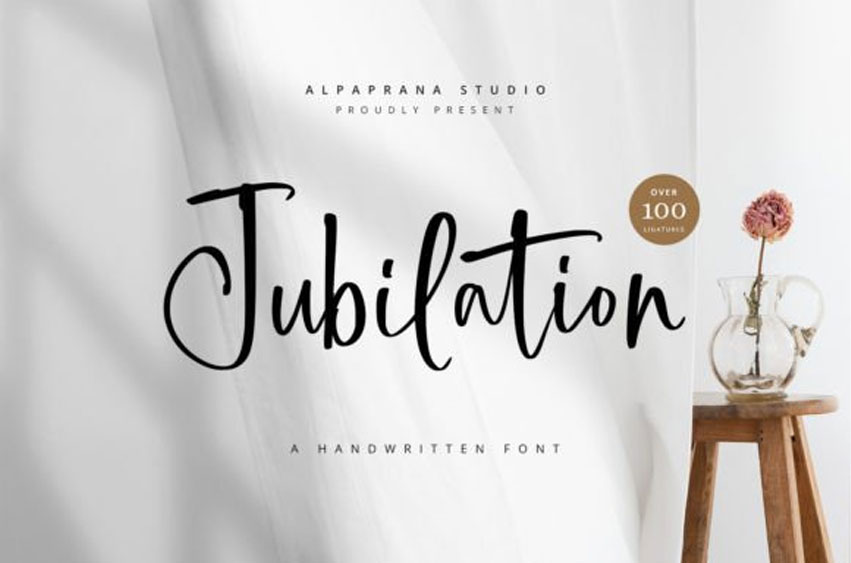
Jubilation Font
Jubilation Font is a modern and natural-looking signature script font.
Fall in love with its stylish and elegant look and use it to create stunning designs.